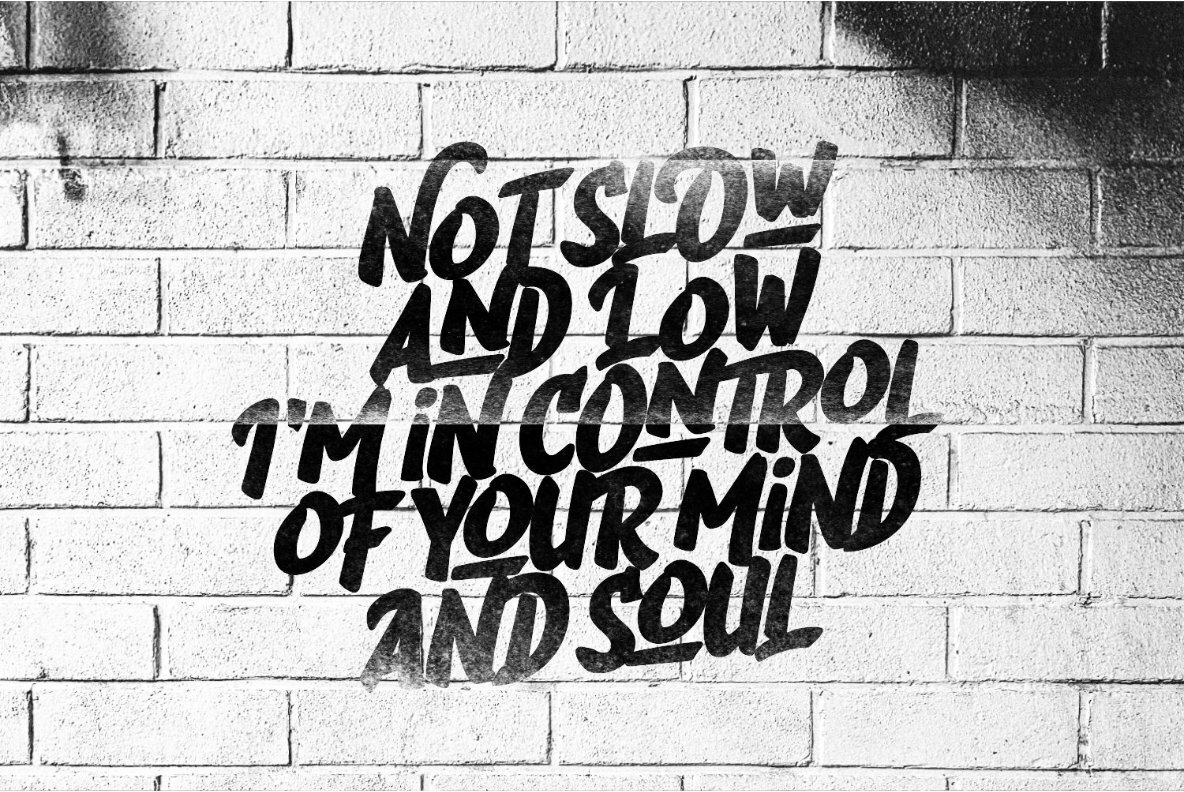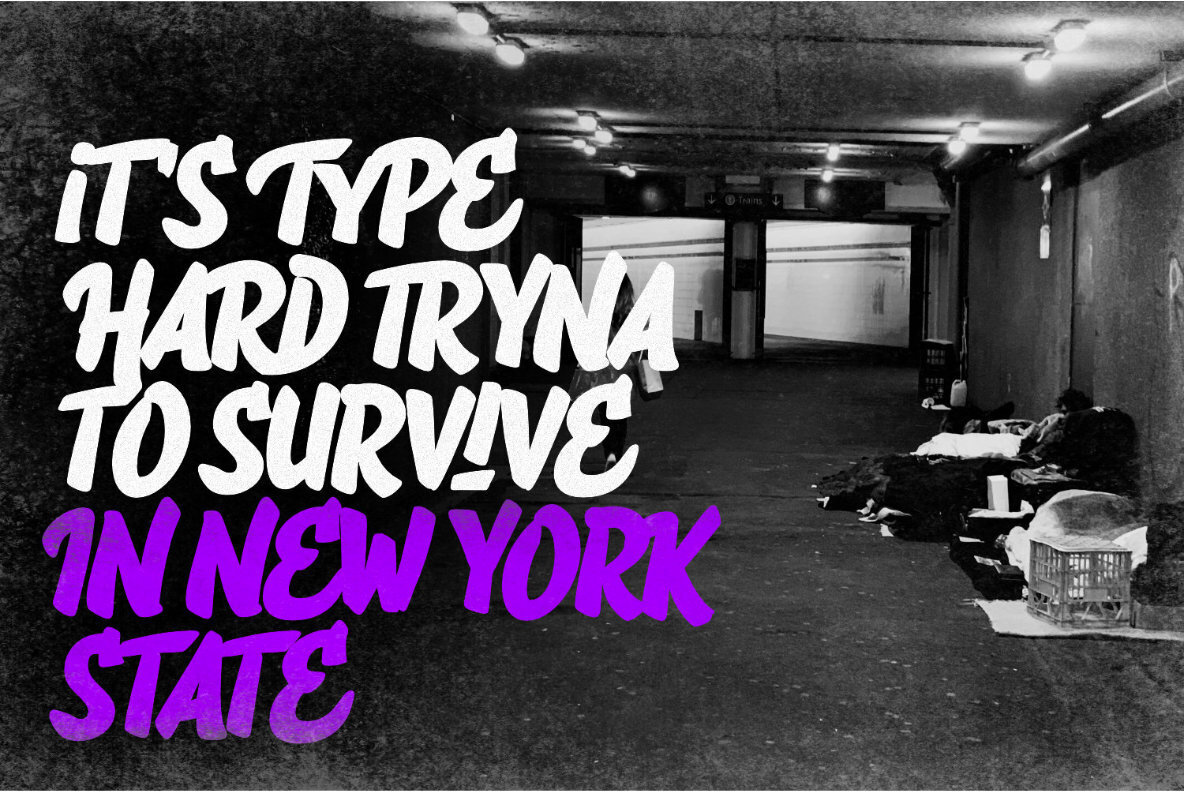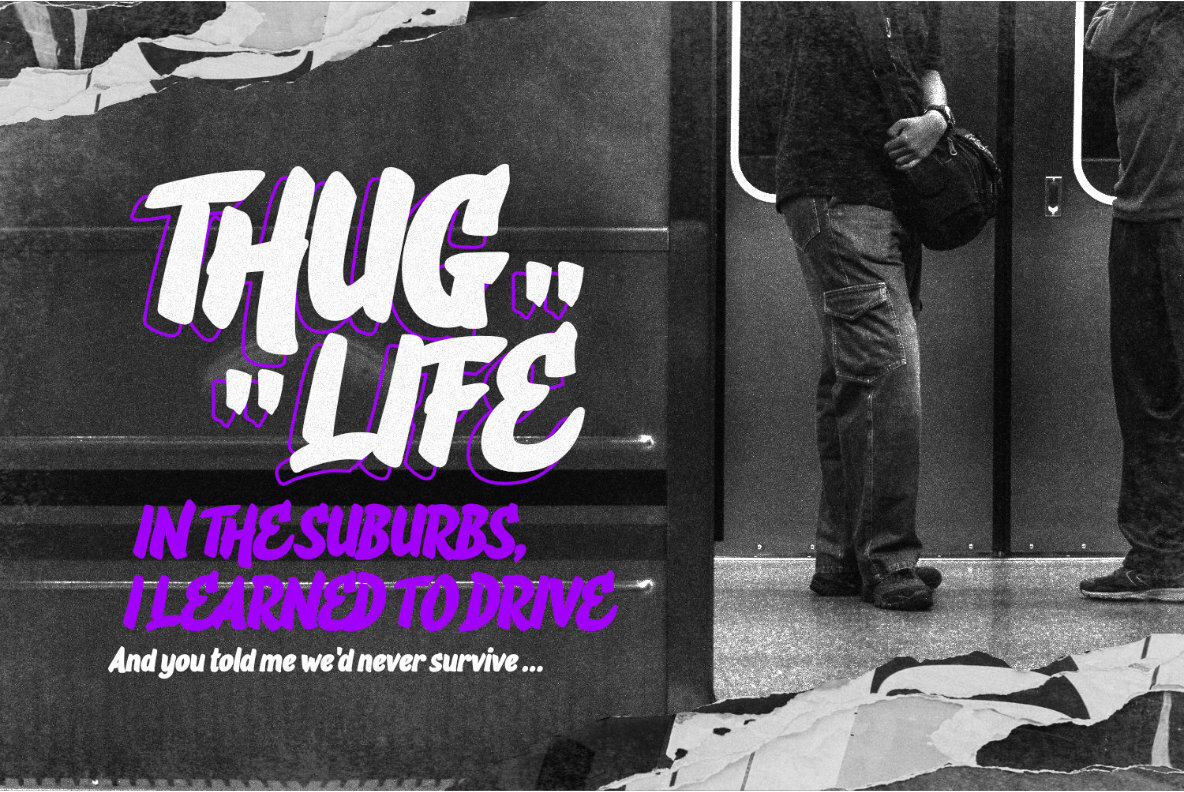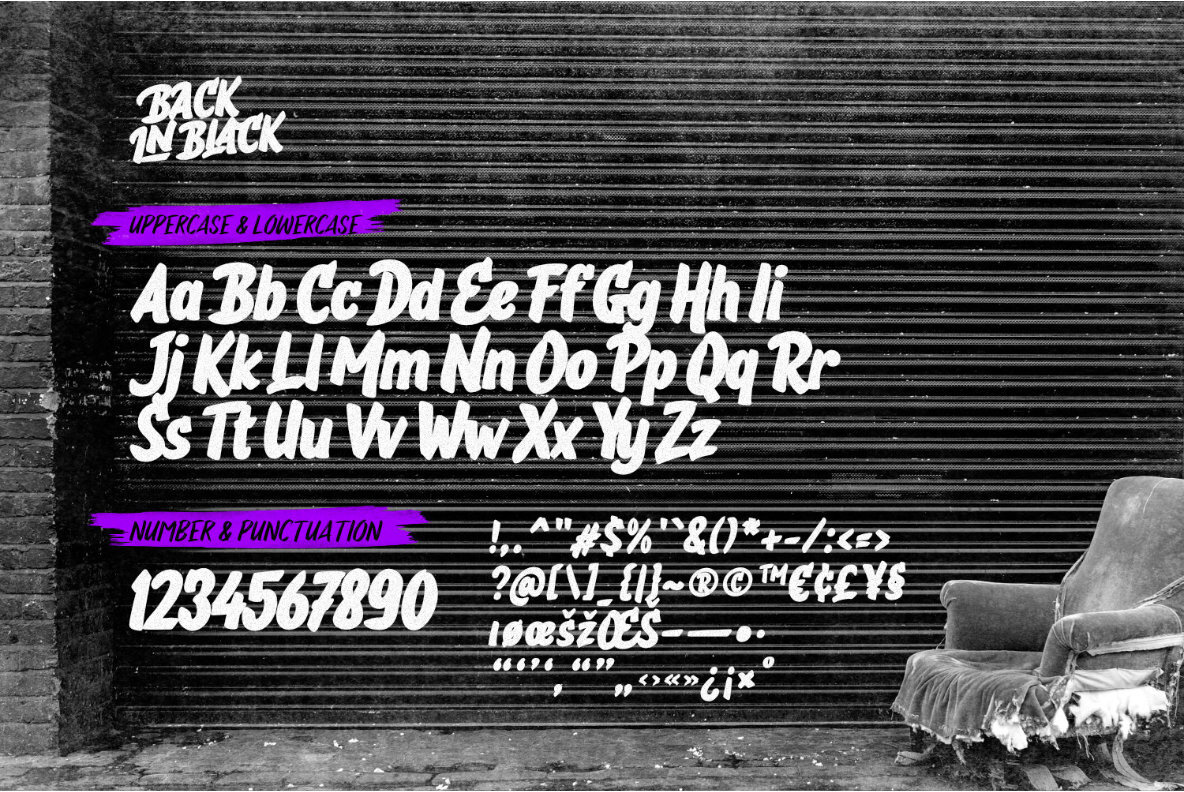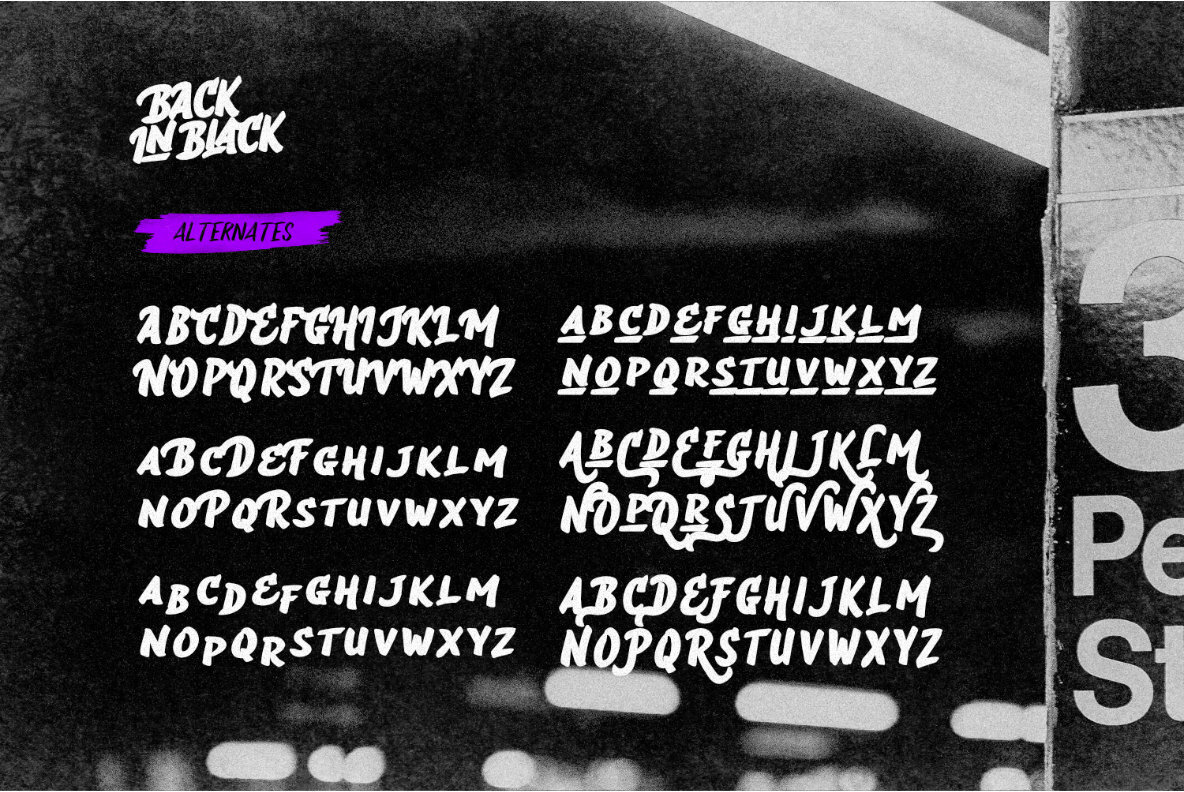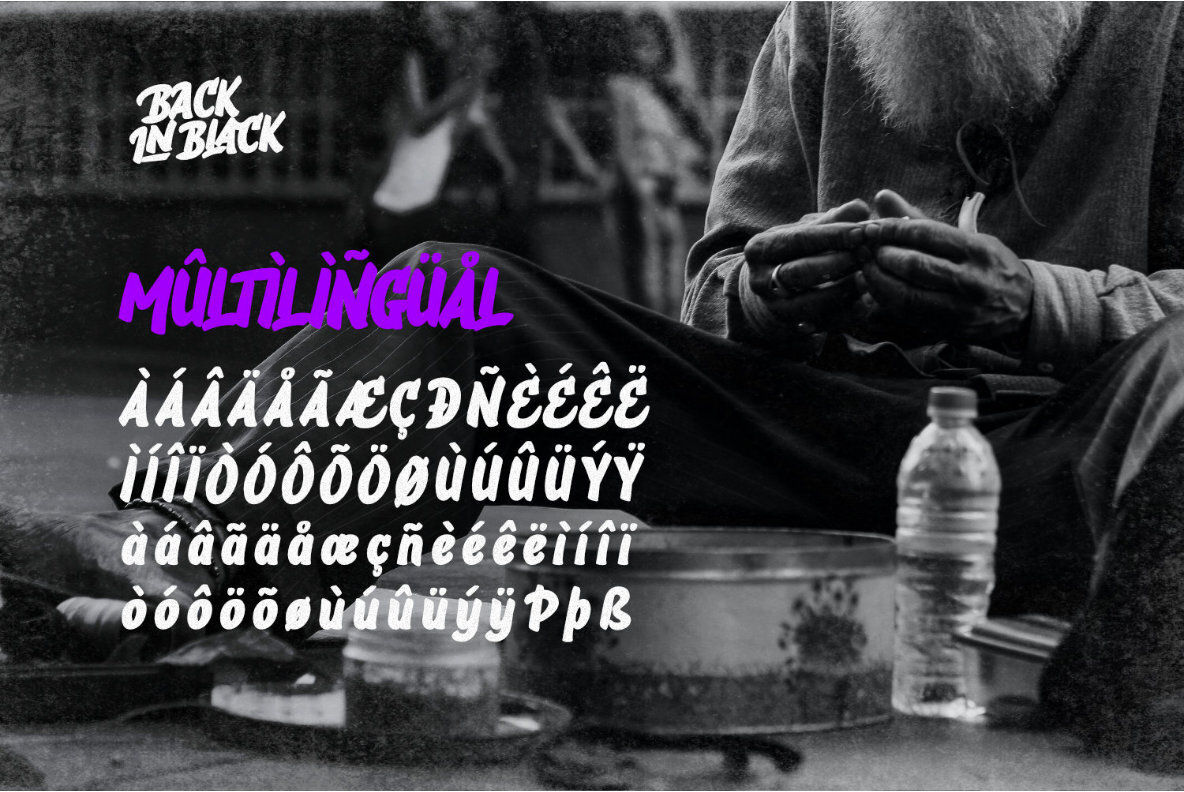
Back In Black Font
BACK IN BLACK
Back in Black is a hand-drawn brush font that captures the essence of urban graffiti and street art. Its bold strokes and expressive style convey a sense of edginess and rebelliousness that is perfect for designs with an urban vibe.
Whether you're creating a poster for a music festival, designing a book cover, or adding text overlays to images, this font will make your designs stand out from the crowd. Its expressive and bold style is perfect for creating a powerful impact on your audience.
This font is perfect for those looking to make a statement with their design work. It has an unmistakable character that is both bold and daring, making it perfect for designers who want to push boundaries and challenge the status quo.